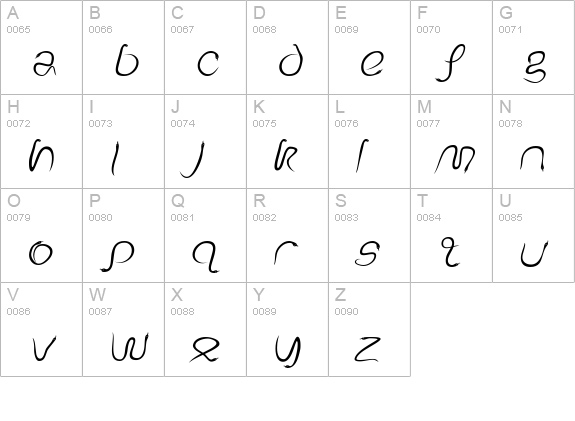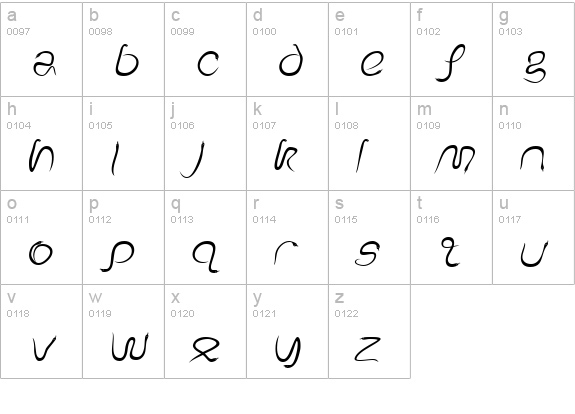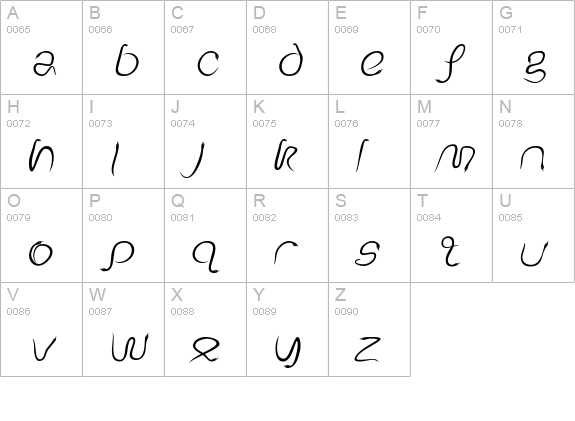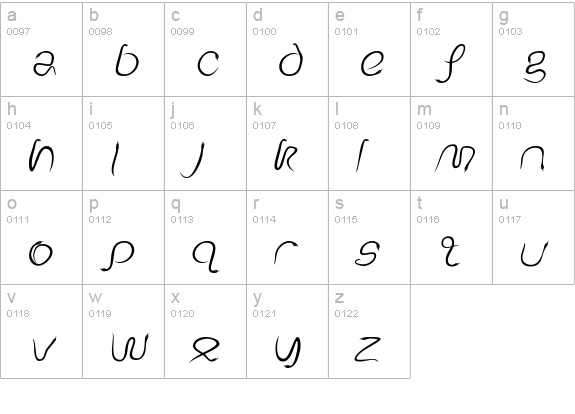
EdenDisplay Italic Font Details
EdenDisplay Italic is a distinctive, italic variant in the EdenDisplay typeface family \xE2\x80\x94 well suited to design and typography projects.
EdenDisplay Italic is a stunning font that exudes elegance and sophistication. With its sleek and slanted letterforms, this typeface adds a touch of modernity and style to any design project. Whether used for headlines, logos, or branding materials, EdenDisplay Italic is sure to make a lasting impression. The fluid curves and delicate strokes of EdenDisplay Italic create a sense of movement and grace, capturing attention and guiding the reader's eye effortlessly. Its unique italicized design sets it apart from traditional fonts, giving your text a dynamic and contemporary feel. One of the best features of EdenDisplay Italic is that it is free to download at FontsMarket.com. This means that you can enjoy the beauty and versatility of this font without any cost. Whether you are a professional designer looking to enhance your creative projects or an individual seeking to add a touch of sophistication to personal endeavors, EdenDisplay Italic is the perfect choice. With its wide range of glyphs and extensive language support, EdenDisplay Italic is suitable for various design applications. It is compatible with both print and digital mediums, ensuring that your message looks crisp and professional across different platforms. Download EdenDisplay Italic today from FontsMarket.com and unlock the potential of this incredible font. Enhance your designs with its elegant and stylish aesthetic, and make a lasting impression with every word. Whether it's for personal or commercial use, EdenDisplay Italic is a versatile typeface that will elevate your projects to new heights of sophistication.